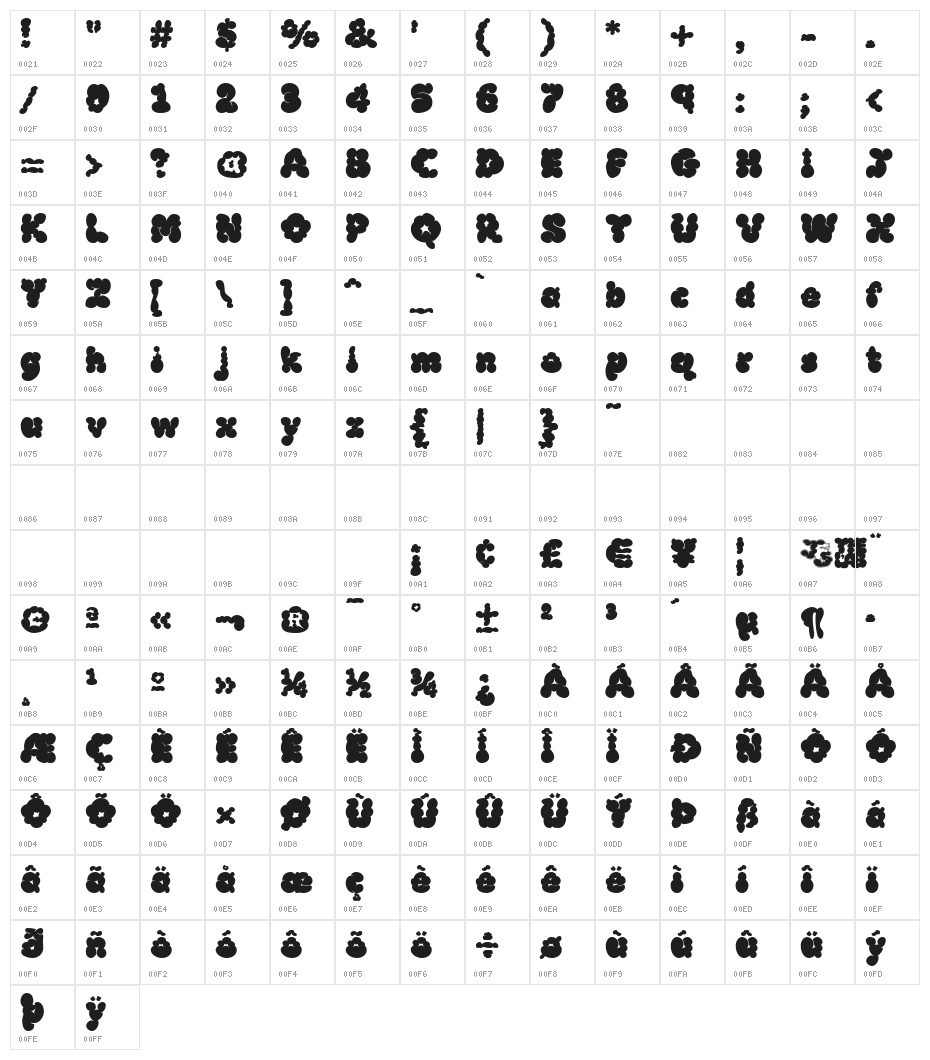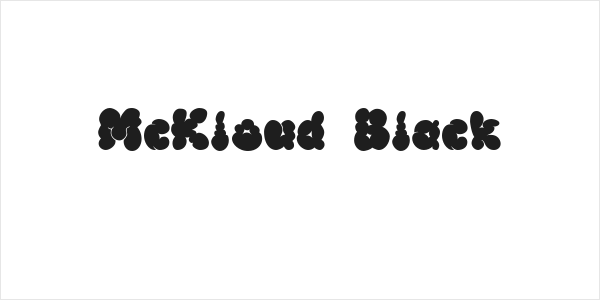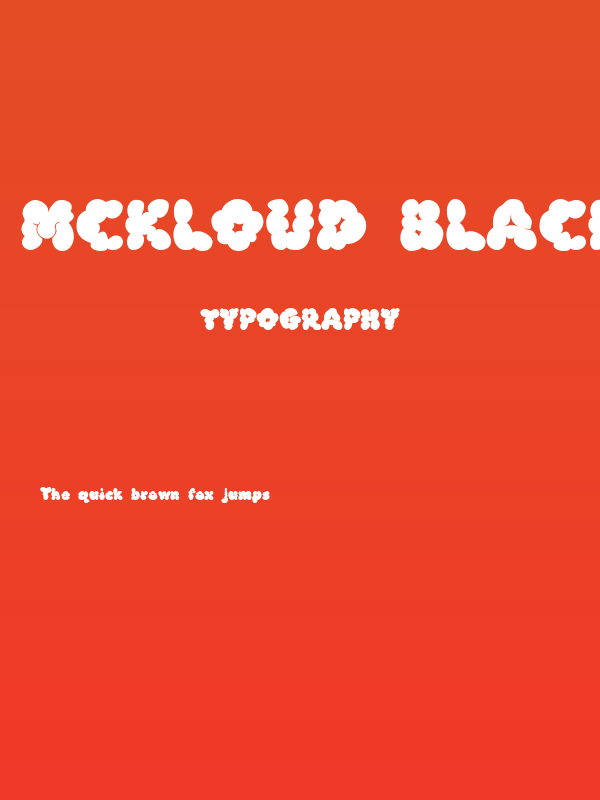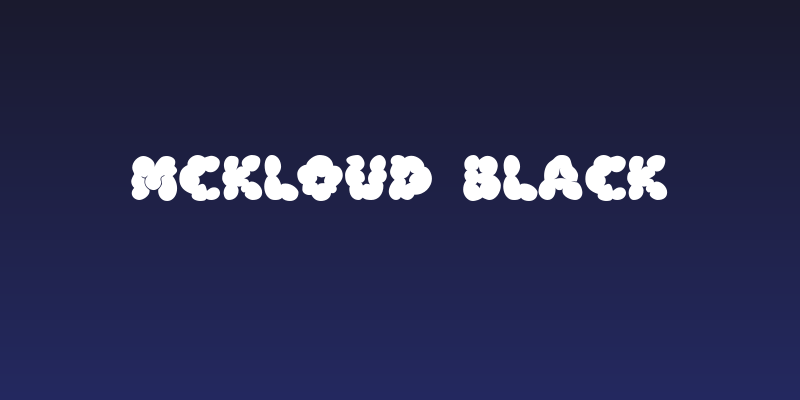
McKloud Black Font
McKloud Black Description
This font features a bold and playful design with a bubbly, cloud-like appearance. The characters are heavily rounded with thick strokes, giving a soft and whimsical feel. The unique style is characterized by its exaggerated curves and bold presence, making it stand out in any design. The font maintains a consistent weight throughout, with each letterform appearing as if it is inflated, adding a sense of fun and creativity. The overall aesthetic is both eye-catching and memorable, suitable for projects that require a touch of humor and lightheartedness.
| Proposed Projects | Perfect for children's books, playful branding, party invitations, and creative posters. |